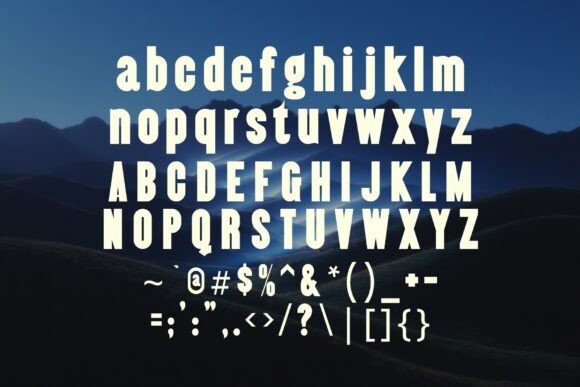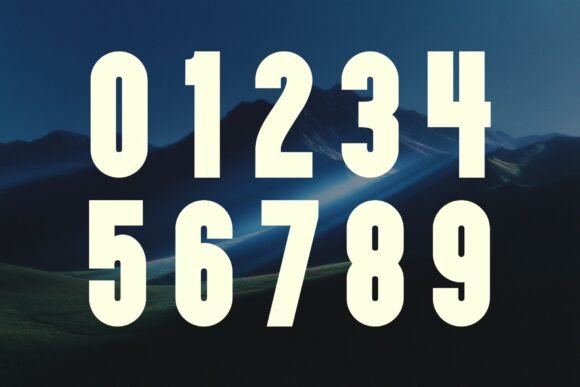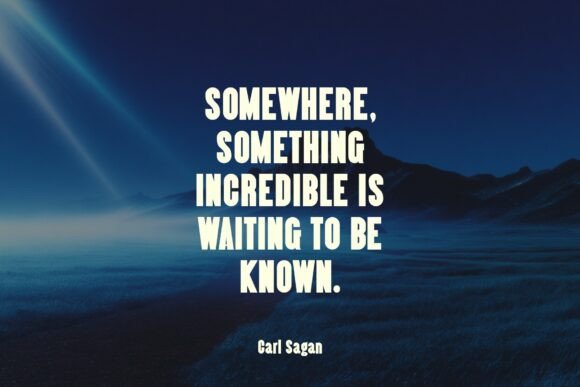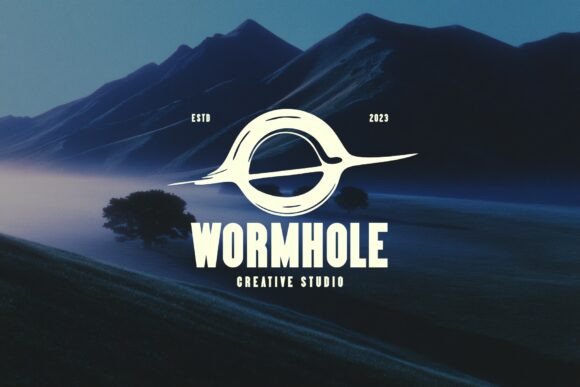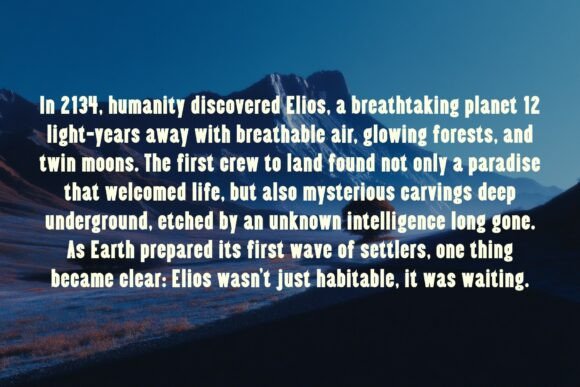
Discover the Elegance of Aventra Font: Elevate Your Design with Modern Sophistication
In the world of typography, the right font can make all the difference in elevating your design from ordinary to extraordinary. For those seeking a typeface that exudes confidence, clarity, and minimal charm, Aventra Font is an exceptional choice. This tall sans serif typeface is designed to bring a touch of modern elegance to your branding, packaging, and editorial projects, making it a versatile powerhouse for designers and crafters alike.
The Essence of Aventra: Clean Lines and Refined Geometry
Aventra’s design is rooted in its clean lines and refined geometry, which collectively contribute to its effortless sophistication. The font’s sleek vertical stance and contemporary proportions make it an ideal choice for a wide range of applications, from luxury product labels and stylish logos to high-end packaging. Aventra’s aesthetic is not just about visual appeal; it’s also functional, ensuring that your message is conveyed with precision and impact.
Unparalleled Legibility and Boldness
One of Aventra’s standout features is its crystal-clear legibility at any size. This makes it incredibly versatile, suitable for both large-scale headlines and smaller body text. Additionally, Aventra possesses an understated boldness that ensures your message always comes through with clarity. This balance of elegance and assertiveness makes Aventra a go-to font for designers looking to create a lasting impression.
Applications of Aventra: Where Elegance Meets Functionality
Aventra’s range of applications is vast, thanks to its adaptable design. Here are a few ways you can utilize Aventra to elevate your projects:
- Branding: Create a memorable brand identity with Aventra’s sleek and sophisticated look. Its modern elegance can help your brand stand out in a crowded marketplace.
- Packaging: For luxury products, high-end cosmetics, or gourmet foods, Aventra brings a level of sophistication that can enhance the perceived value of your product.
- Editorial Projects: Whether you’re designing a magazine, a book, or an editorial spread, Aventra’s readability and aesthetic appeal make it an excellent choice for both headings and body text.
- Logo Design: Aventra’s unique blend of elegance and boldness makes it perfect for creating logos that need to convey a sense of luxury, professionalism, and modernity.
Why Choose Aventra?
Choosing Aventra for your typography needs comes with several advantages:
- Versatility: Aventra’s design is versatile enough to be used across various platforms and project types.
- Legibility: Its clear and readable design ensures your message is communicated effectively.
- Elegance: Aventra brings a touch of modern sophistication to your designs, helping you create a memorable visual impact.
- Impact: With Aventra, your designs are not just visually appealing; they also carry a certain level of assertiveness that can help your message stand out.
Aventra Font offers a unique combination of modern elegance, versatility, and functionality that makes it an invaluable asset for designers and crafters. Its clean lines, refined geometry, and exceptional legibility ensure that your projects are not only visually stunning but also effective in communicating your message. Whether you’re aiming to create a luxury brand identity, design high-end packaging, or simply looking for a sophisticated typeface for your editorial projects, Aventra is a choice that promises to elevate your designs with effortless sophistication.
Step into the world of modern elegance with Aventra, and discover how this tall sans serif typeface can transform your designs with its confident, clear, and minimal charm.